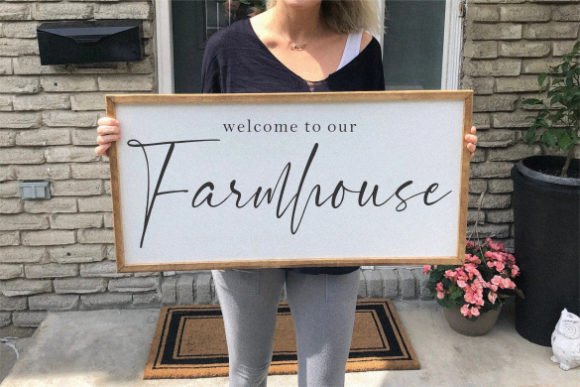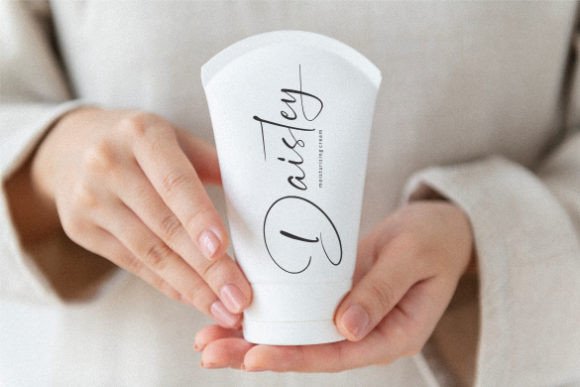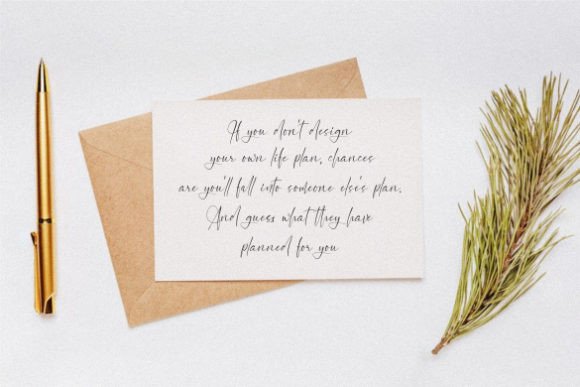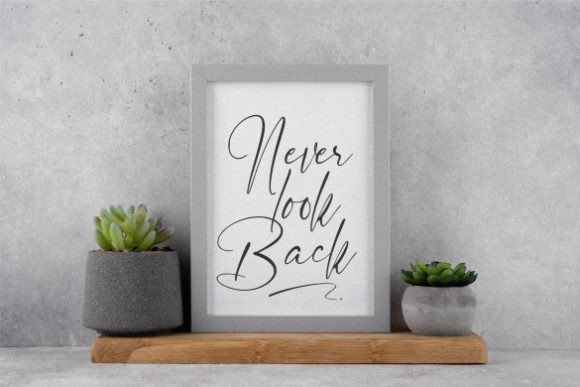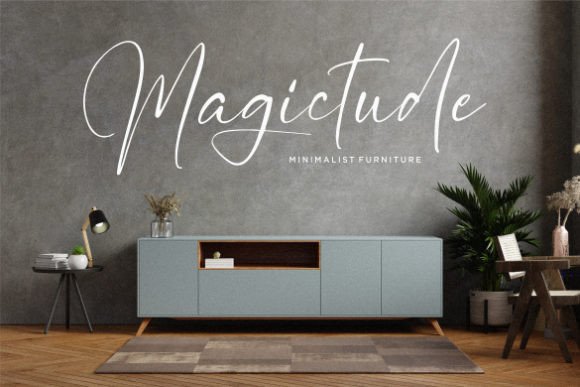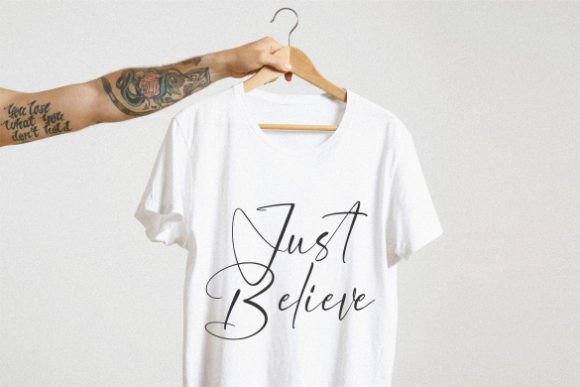
Introduction to Molighwood Font Font
Fonts play a crucial role in design, and the Molighwood Font font is a typeface that brings both character and versatility to any project. Whether you’re working on a branding project, a website, or a print design, the Molighwood Font font offers a unique style that can elevate your work.
Molighwood is a stylish and incredibly elegant handwritten font.
It is defined by smooth curves and is perfect for fashion branding or editorial designs Use this font for your designs and explore its endless possibilities.
Key Features of Molighwood Font Font
Why Choose Molighwood Font Font?
The Molighwood Font font is more than just a typeface – it’s a design tool that helps you communicate your message with style and clarity. Its unique character set and versatile design make it suitable for a wide range of applications, from elegant invitations to bold headlines.
With its carefully crafted letterforms and balanced proportions, the Molighwood Font font ensures readability and visual appeal across all mediums.
What makes Molighwood Font font special?
The Molighwood Font font stands out with its unique design, exceptional readability, and versatility across various design applications.